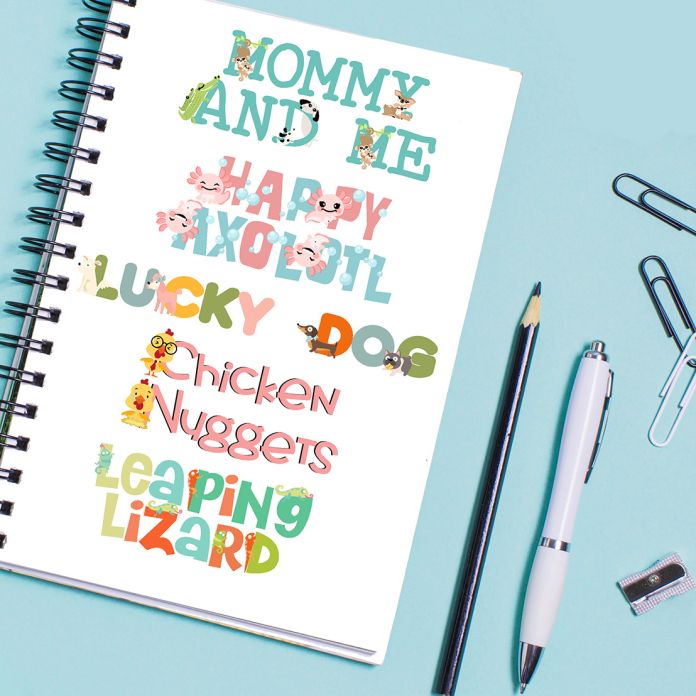
This full-color font bundle features five font full-color alphabets, each with an emphasis on different animals. We've got chickens, axolotls, lizards, dogs and aa set of mom animals and babies. All of these fonts have an alt case available in your system's character map. These fonts works best for titles, displays, posters and more. Please note color fonts will show as black in non compatible programs. These font types are compatible with Silhouette Studio.